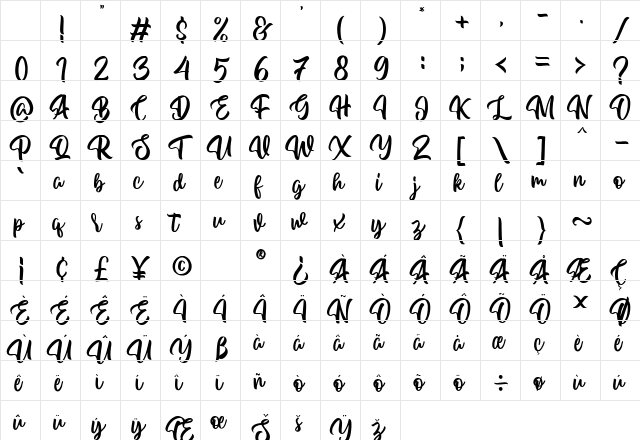
Complete Twinkling Regular glyph index. Displaying only characters natively supported by Twinkling Regular font.
Twinkling is a composed and adaptable typeface that performs quietly and consistently across a wide range of design contexts.